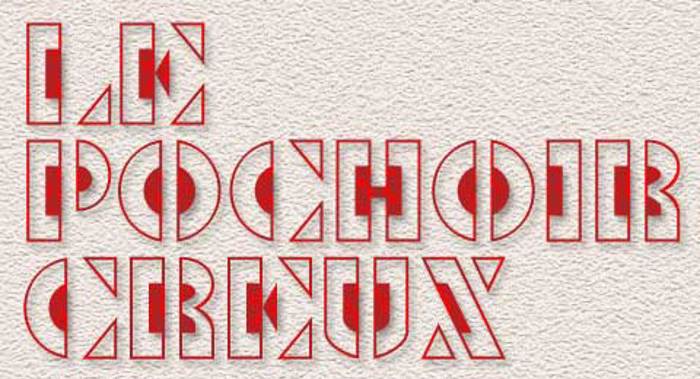
Le Pochoir Creux Font
Le Pochoir Creux is based on the style of the numerals of Le Pochoir as shown on Plate 40 of "La Lettre dans la Peinture et la Publicite" by Jean Joveneaux, published in Paris, France in 1987.